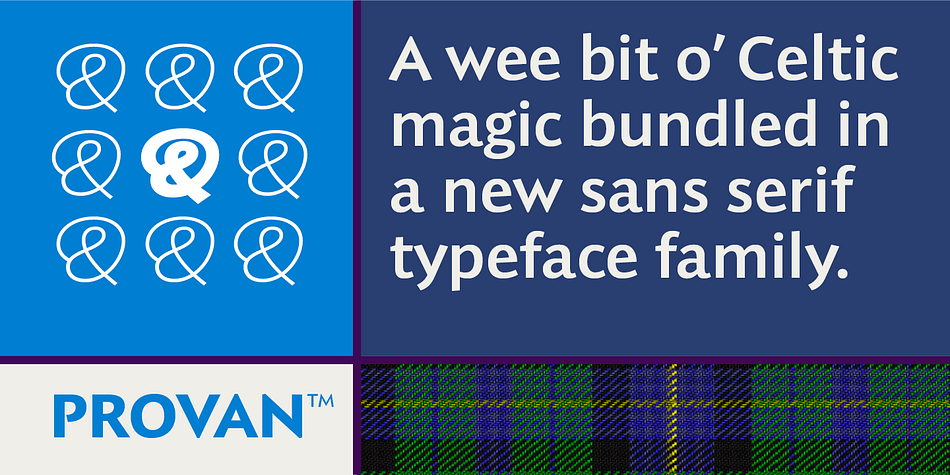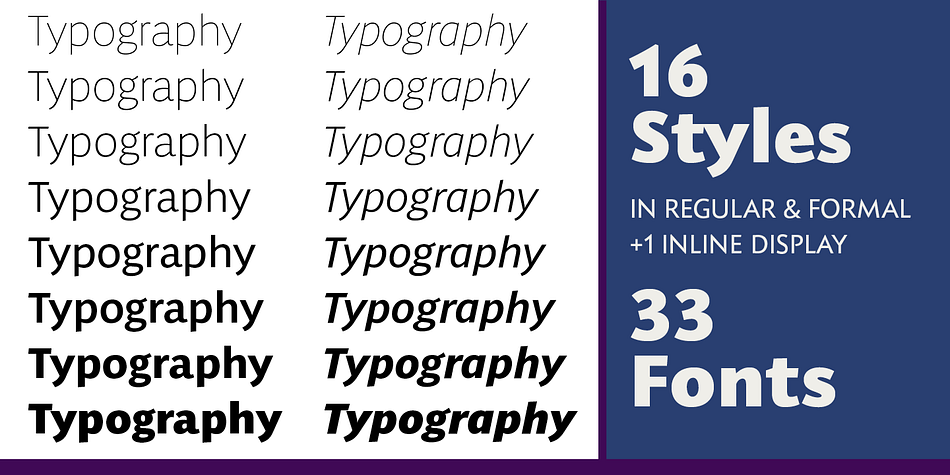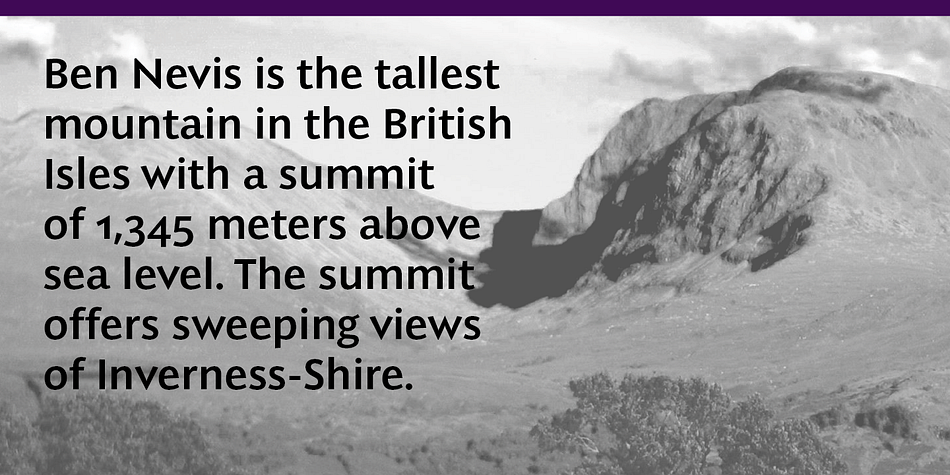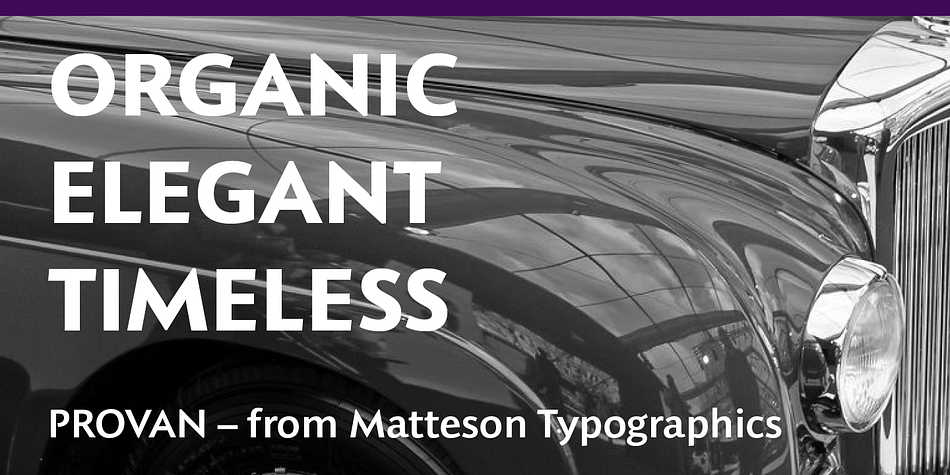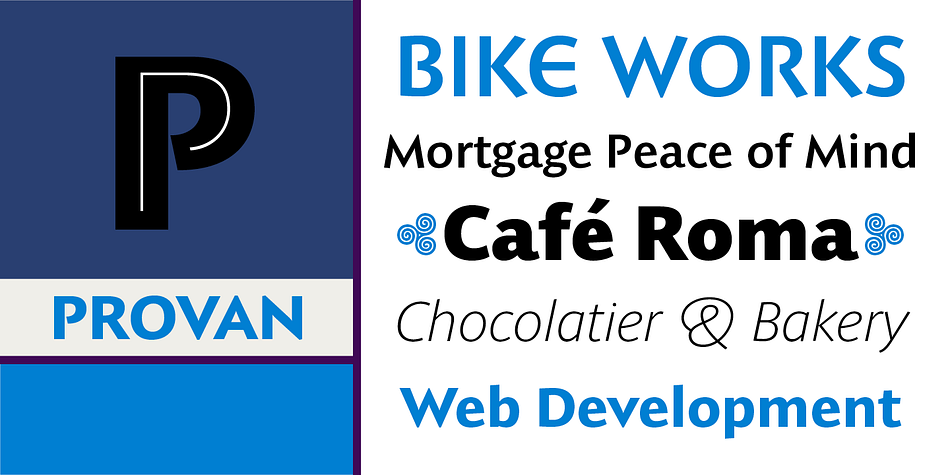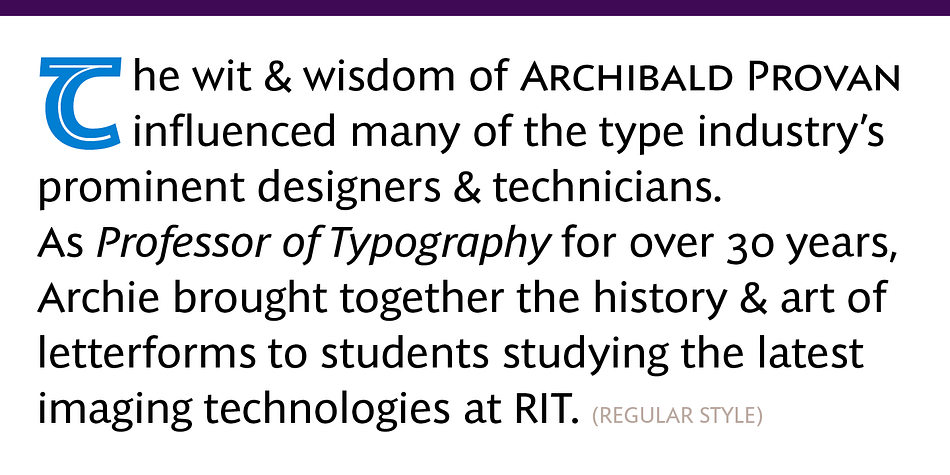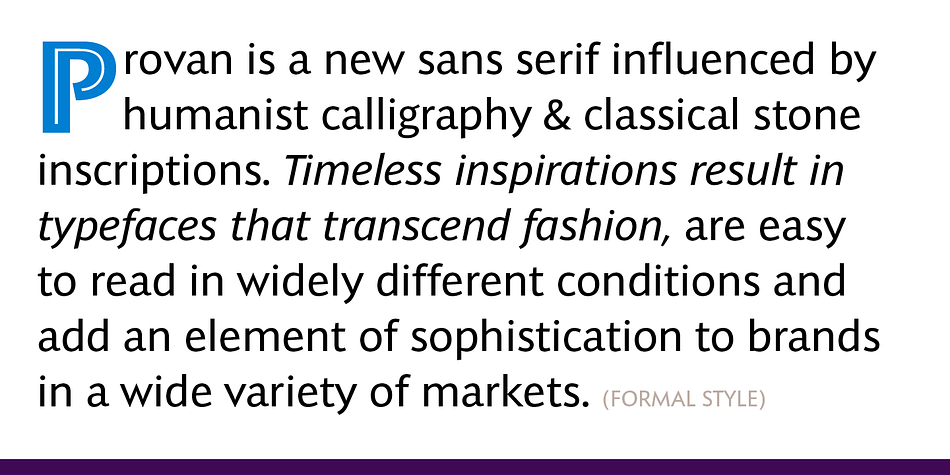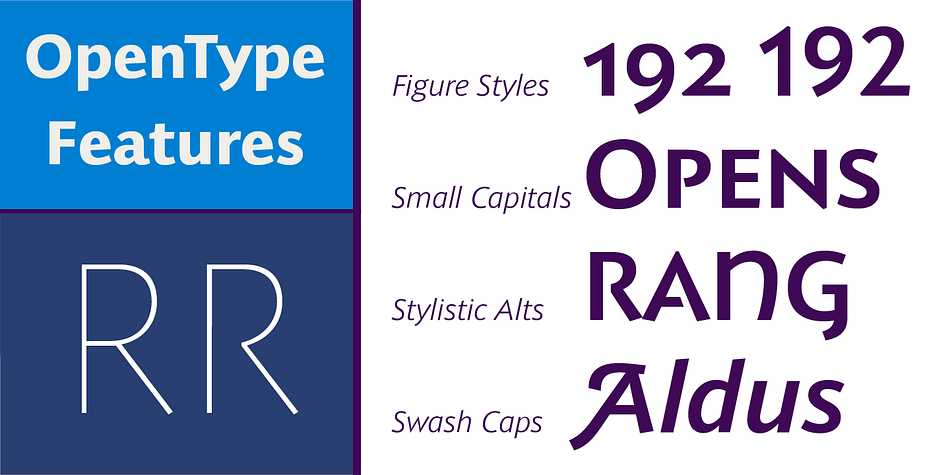
Provan is a sans serif font family. This typeface has seventeen styles and was published by Matteson Typographics.
Provan Formal is a contemporary humanist sans serif with roots in calligraphy and incised letters. Provan’s slightly oblique stress in curved shapes adds to its legibility and warmth. The typeface includes swash capitals, small capitals, old style figures and special Celtic capital variants.
Provan is useful for humanizing digital brands, evoking craftsmanship for packaging or luxury products and is distinctive for logotypes.
Provan is dedicated to my college professor of typography, Archie Provan.